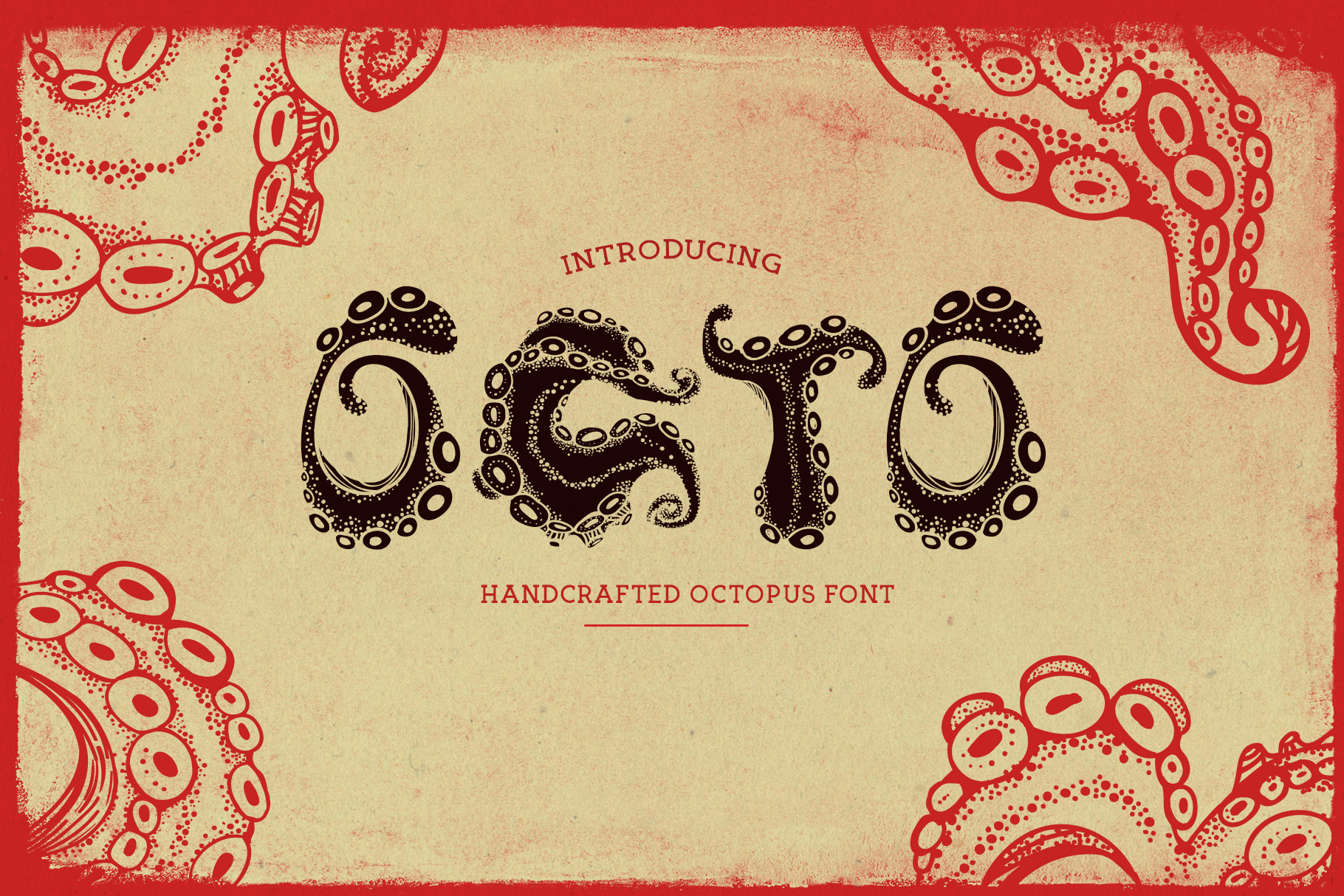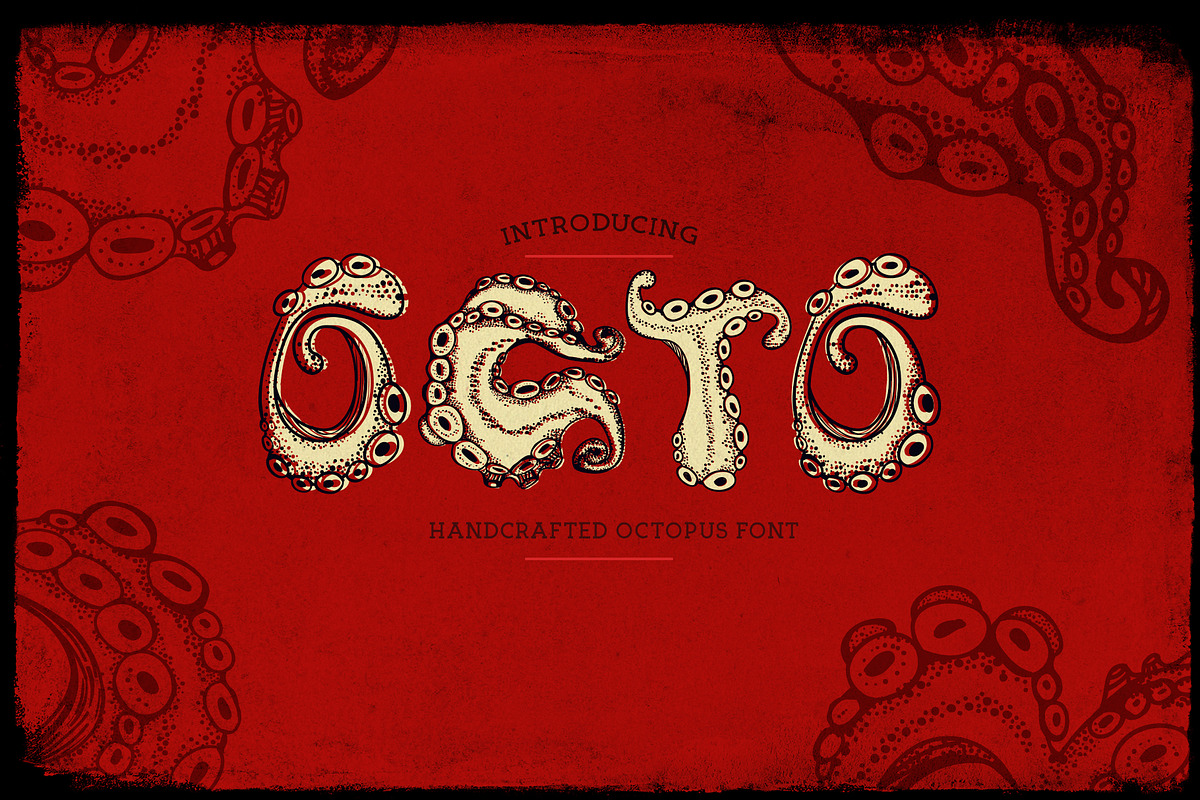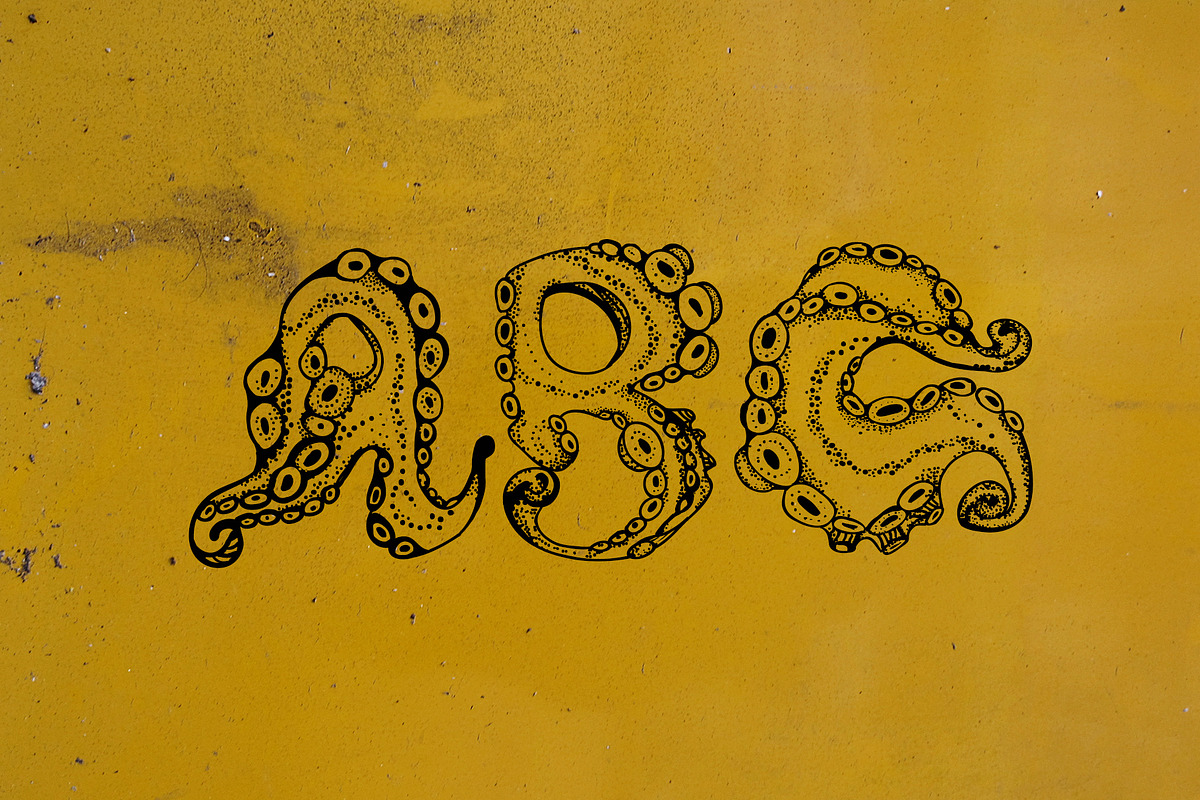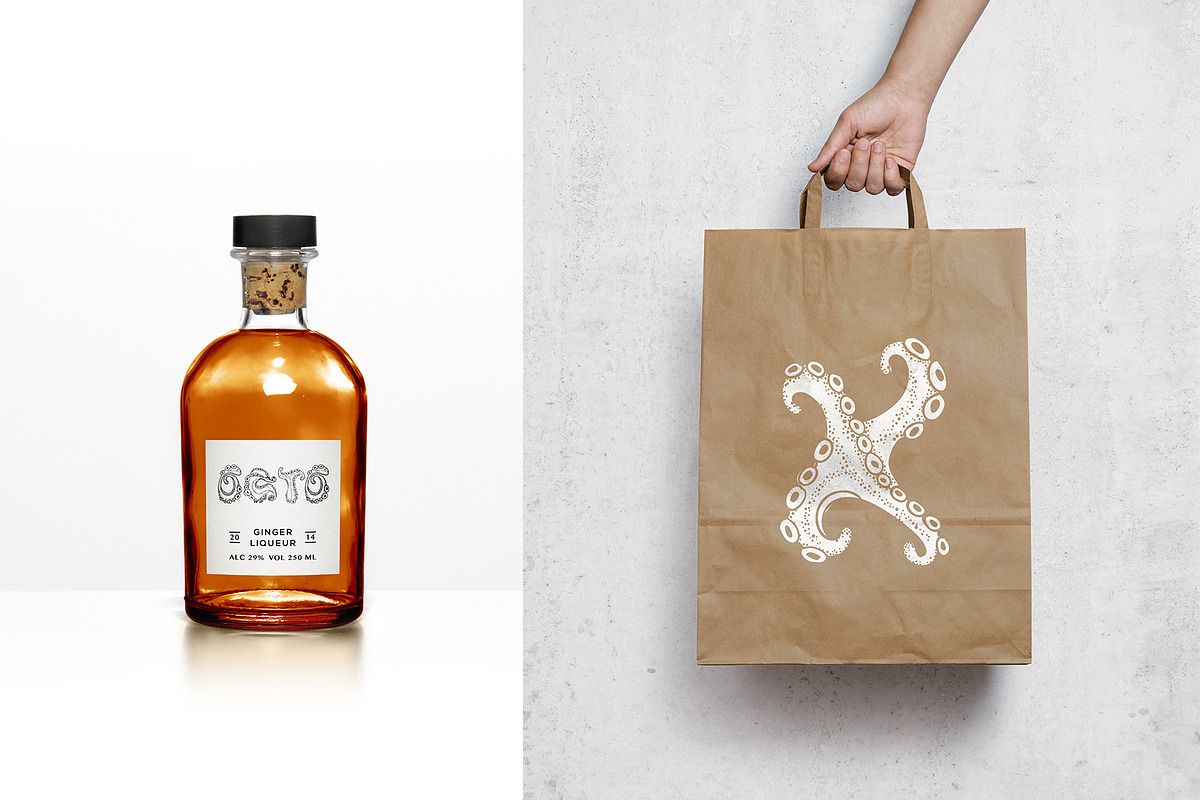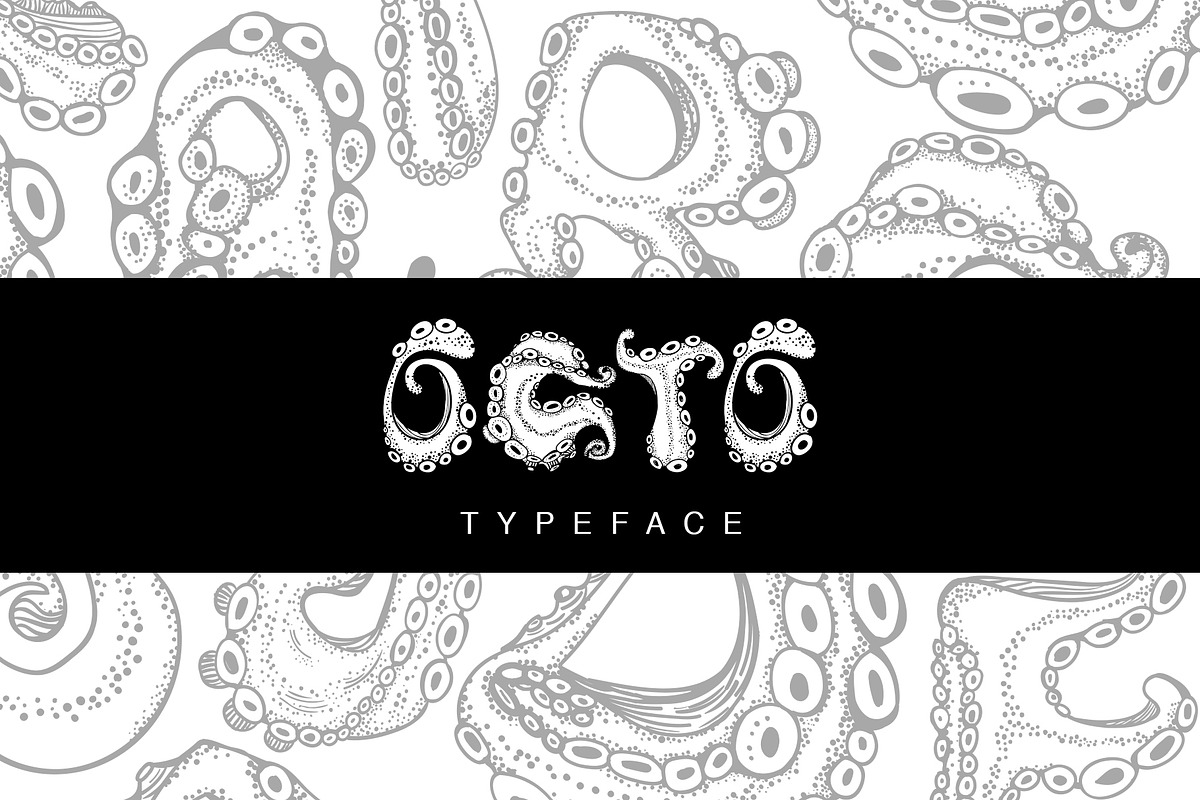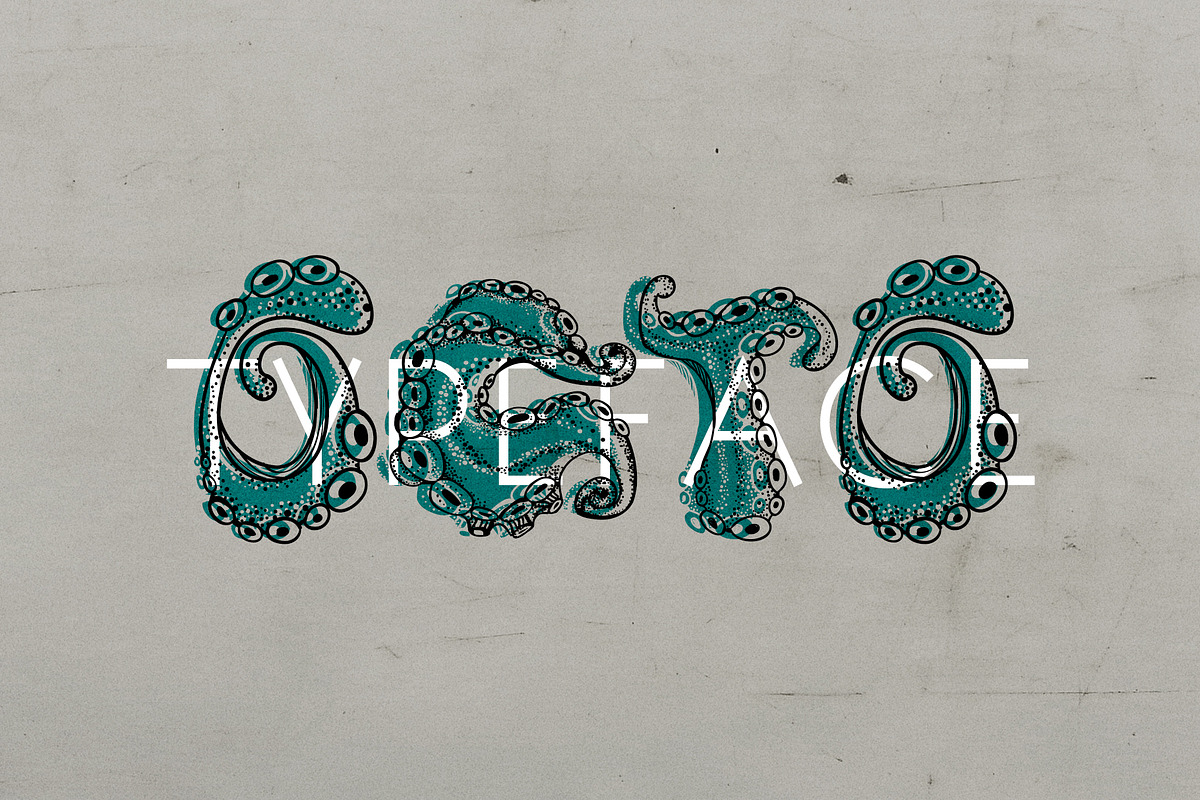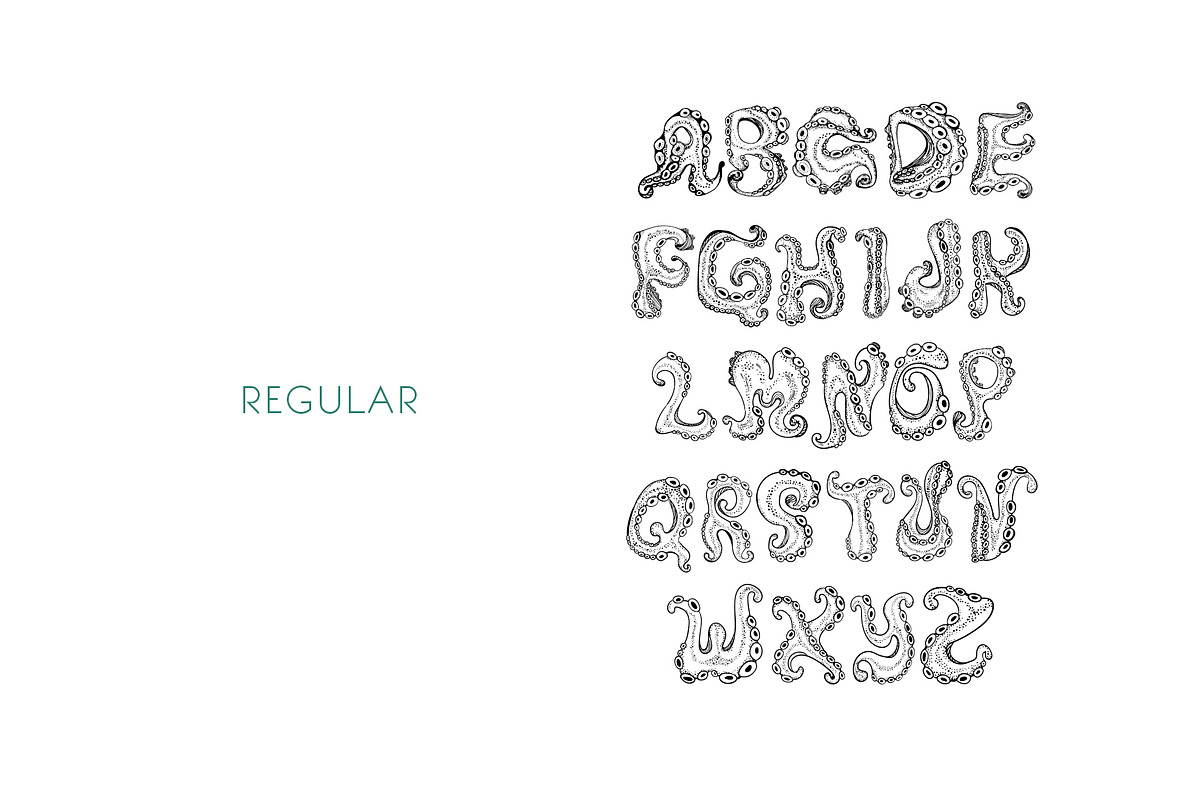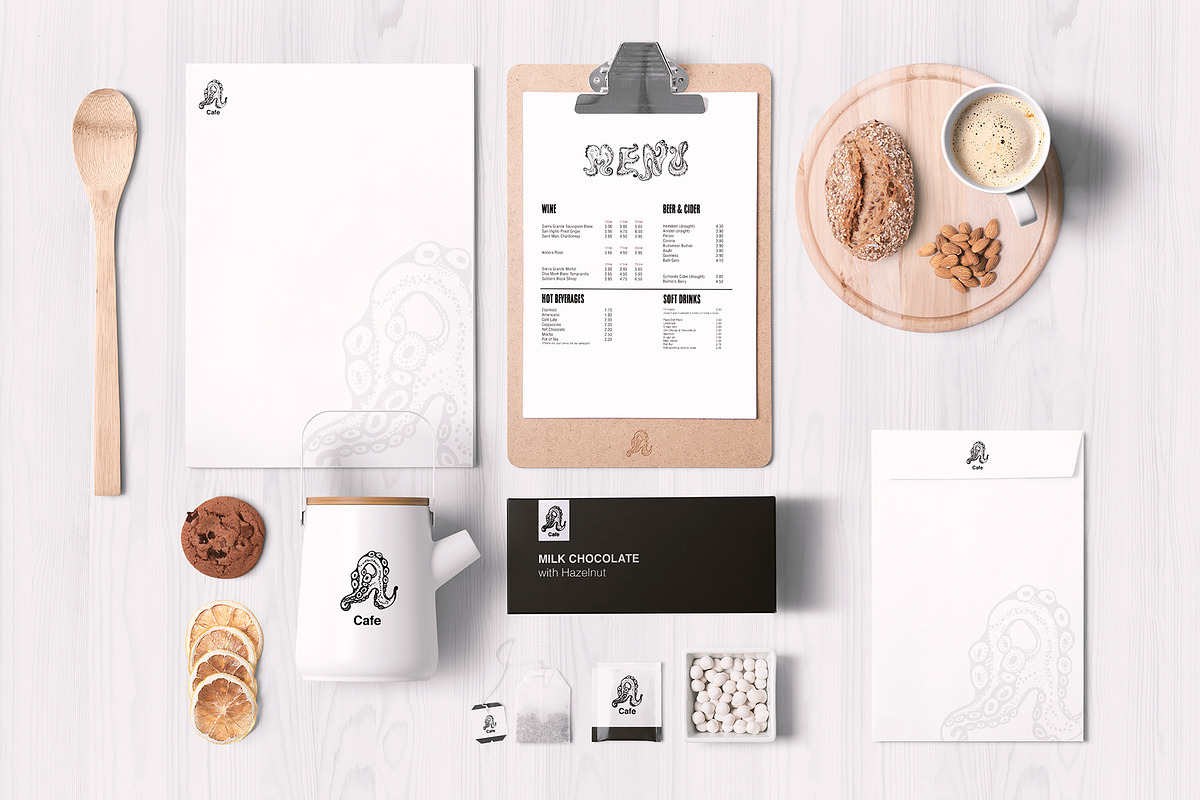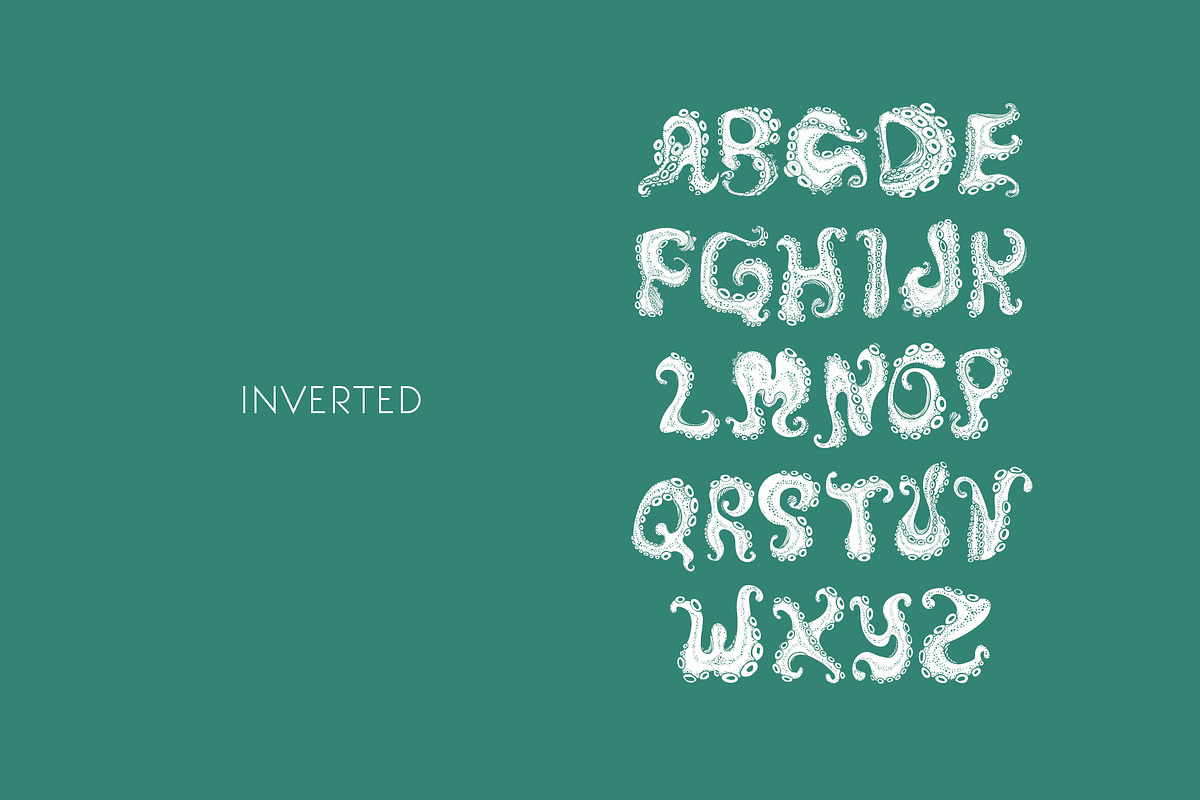
Octo - A hand lettering Octopus font
Megg, our art director at our studio, designed this font years ago. It was beautifully designed but it never saw the light. It was a personal project of hers. It was just sitting in her sketch book. It wasn't used in logos, it wasn't used in poster and I thought it would really be cool if people have access to this font. Imagine what you can do with it. So we cleaned it up and adjusted the kerning. You have two choices to choose from: the outlined version and the inverted version. Two are included in the purchase along with the ai files.
Examples of how you can use the this
- Restaurant menu
- Logo
- Signage
- Business cards
- Poster
- Patterns